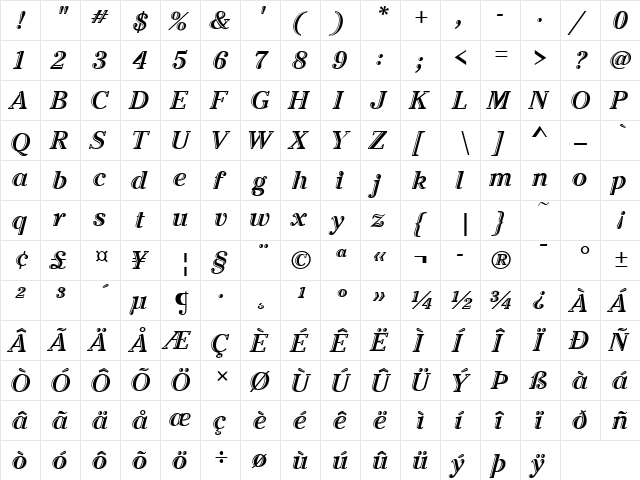
Cheltenham Htd ITC TT Italic
Design Context for Cheltenham Htd ITC TT Typeface
Cheltenham Htd ITC TT takes a measured approach to typography — its balanced proportions and neutral character make it a reliable workhorse for both digital and print work. The slanted form adds forward momentum and visual energy.